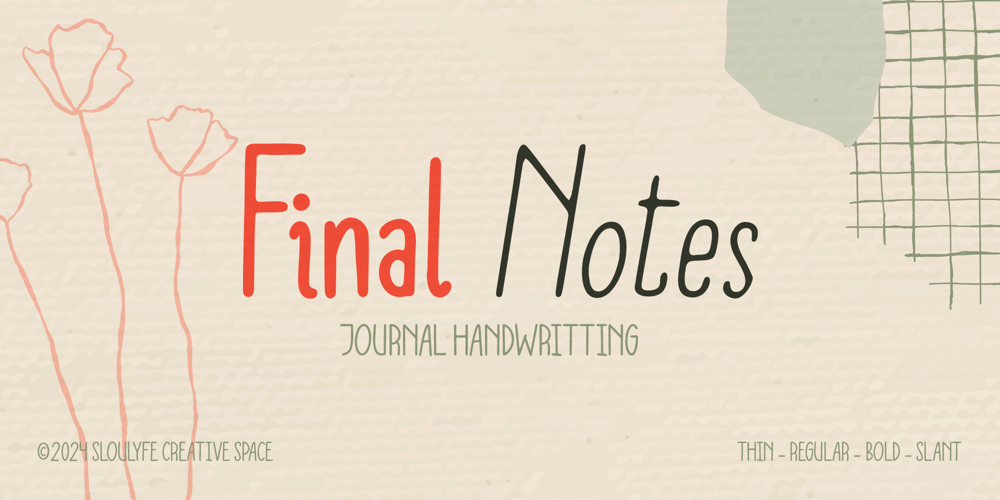
Final Notes Font Family was designed by Amelia Dian Isnaini and published by Sloulyfe Studio. Final Notes contains 6 styles and family package options. Love writing in your digital journal? Final Notes is your new best friend!Final Notes is a relaxed handwriting font that’s both easygoing and stylish. It comes with 6 different styles you can mix and match for a touch of fun. Not just for journaling! Final Notes also adds a casual charm to printed projects like books, headlines, or invitations with casual handwriting touch.The Features :The uppercase & lowercase, numbers and punctuation, multilingual & PUA encoded.The Styles you’ll get : Thin & Thin Slant Regular & Slant Bold & Bold Slant